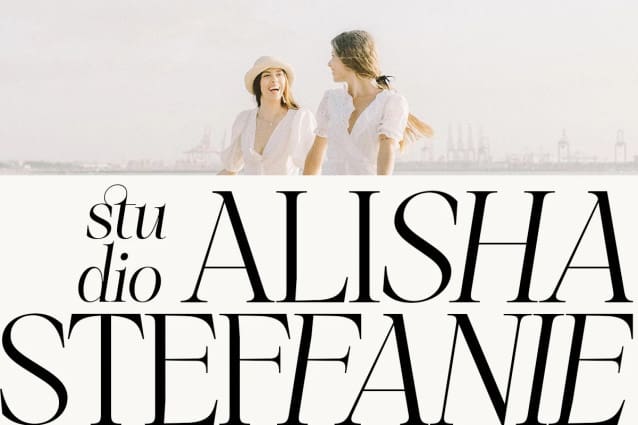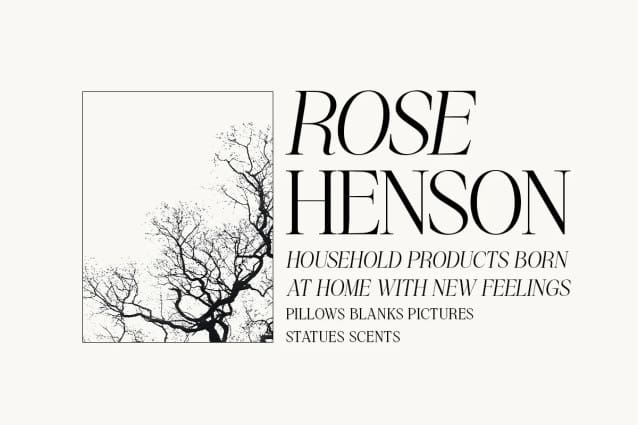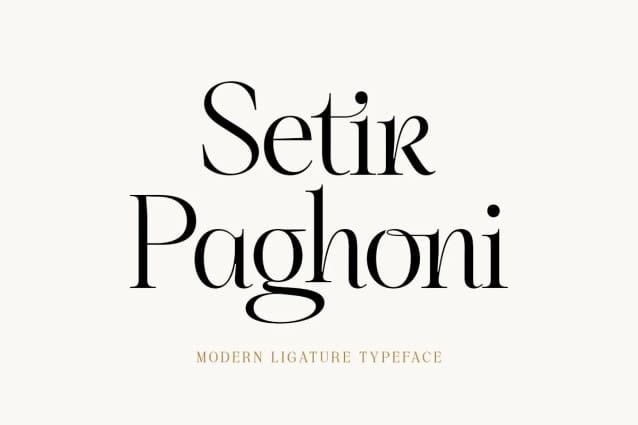
Setir Paghoni Font
Setir Paghoni Font is a modern serif font that uses unique ligatures to connect letters smoothly. SetirPaghoni comes with matching slanted trim. Perfect for adding a unique touch to wordmark logos, fashion headlines, editorial designs, branding projects, magazine titles and more.